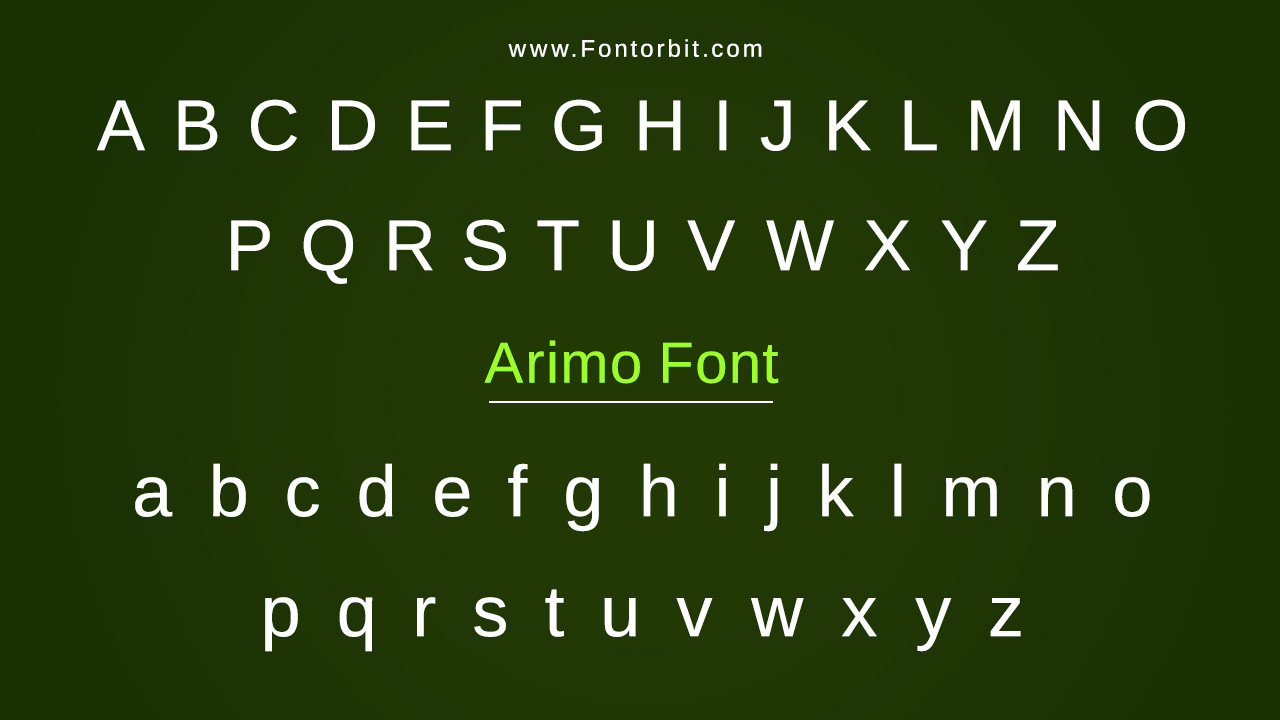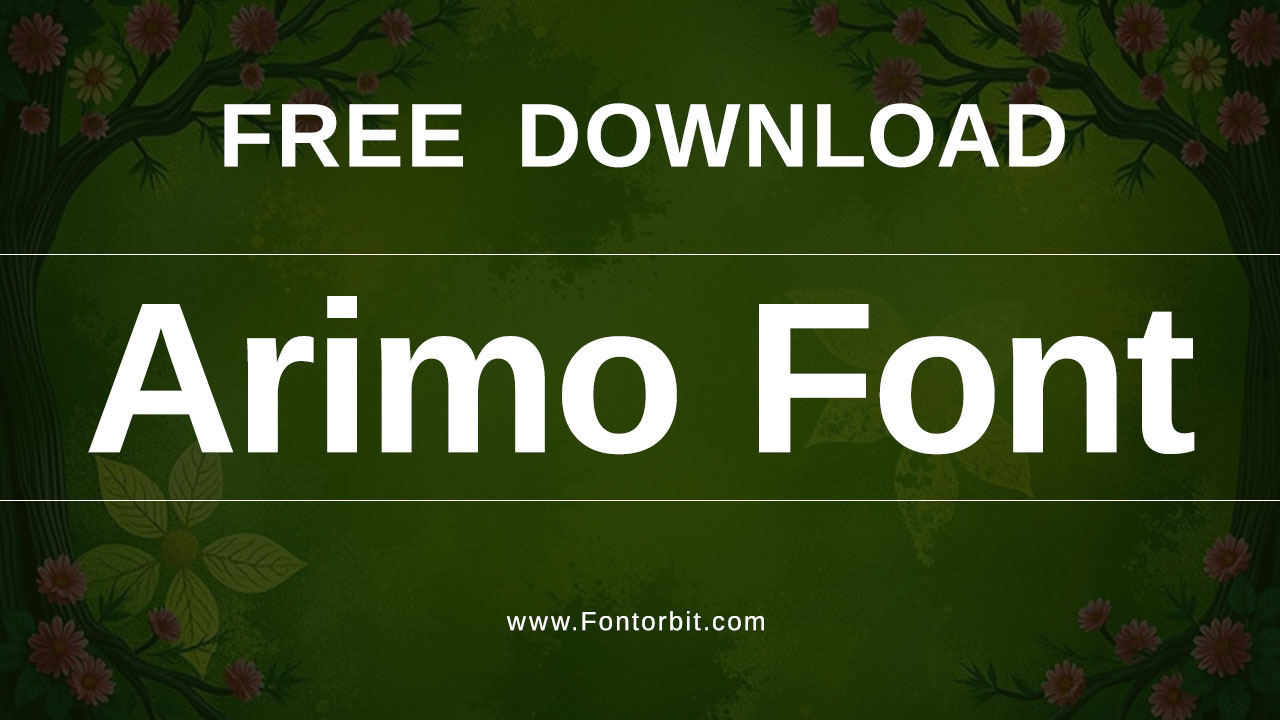
Arimo is a modern sans-serif font designed by Steve Matteson and published by Ascender Corporation in 2010. This font family offers excellent readability and a neutral design, making it versatile for various digital and print applications. This font was developed as a metrically compatible font to Arial, offering a contemporary feel.
Arimo Family Includes
Arimo is part of an extended family, which includes multiple styles and weights. The font family offers flexibility, especially in professional documents and branding.
- Arimo Regular
- Arimo Italic
- Arimo Bold
- Arimo Bold Italic
Arimo’s versatility makes it ideal for various settings. Its neutral design means it works well across industries and media.
- Web design
- Branding for tech companies
- Corporate presentations
- Rports
- User interfaces
- Apps
- Educational material
- E-books
Arimo is a go-to font for digital projects, especially where legibility and neutrality are required. Its straightforward design makes it a reliable choice for a wide range of uses. Whether for a corporate presentation or a user interface, Arimo’s clarity ensures content is easily digestible.
1.What Types Of Projects Is Arimo Suitable For?
Web design, corporate branding, and professional documents.
2.Does Arimo Come With Multiple Weights?
Yes, it includes Regular, Italic, Bold, and Bold Italic styles.
4.What Is Arimo’s Readability Like?
It is highly legible, especially in digital interfaces and small sizes.
5.What Makes Arimo Different From Arial?
While metrically compatible, Arimo has slightly modernized shapes.
7.How Does Arimo Perform In Print?
Arimo works well in both digital and print formats, maintaining readability.